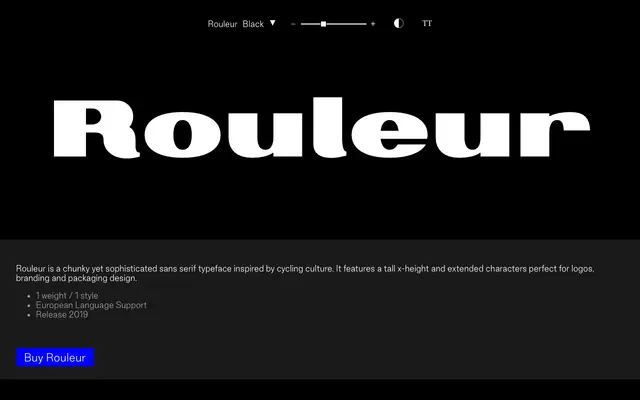
Rouleur
Good Type Foundry · 2019
A single-weight black display sans drawn from cycling culture, with a tall x-height suited to logos and packaging.
Released in 2019, this black-only sans draws its personality from cycling aesthetics, pairing chunky strokes with extended character proportions. The tall x-height gives it strong legibility at display sizes, making it well suited to logo lockups, product packaging and short-burst branding. Coverage spans European Latin with 172 accented glyphs, though the family offers no weight or style variation beyond its single Black cut.
A single-weight black display sans with a tall x-height and extended proportions, clearly intended for large-scale logo and packaging use rather than text setting.